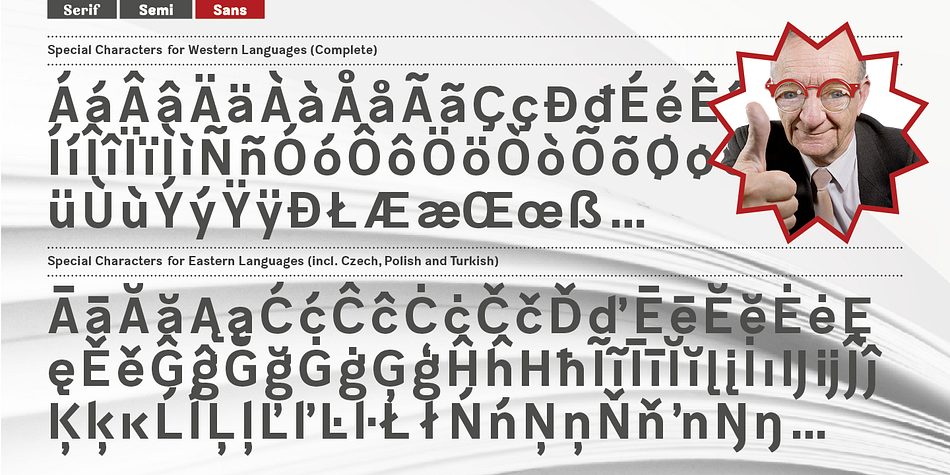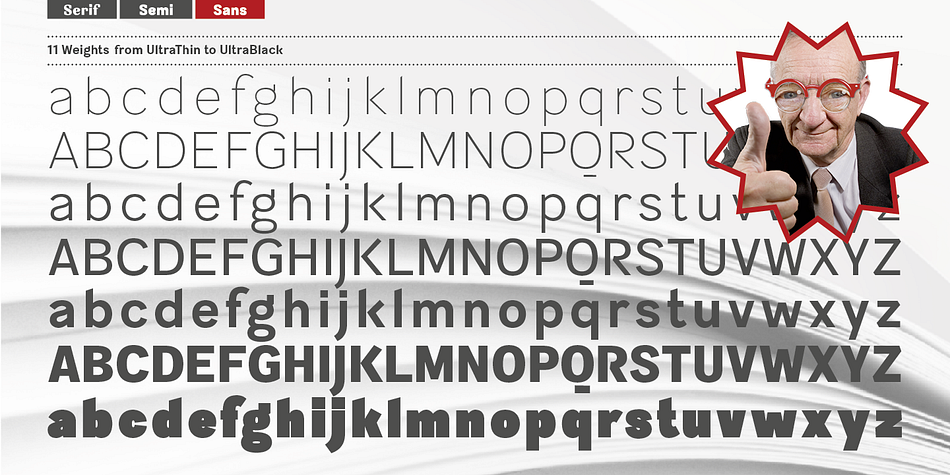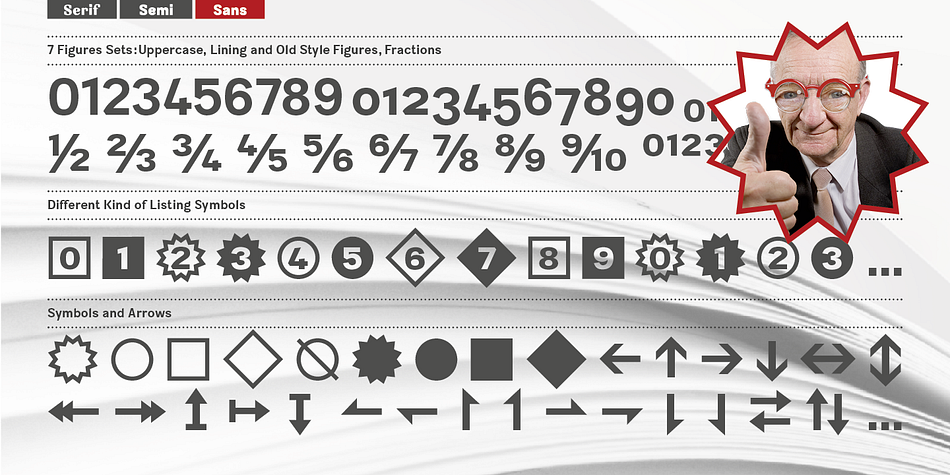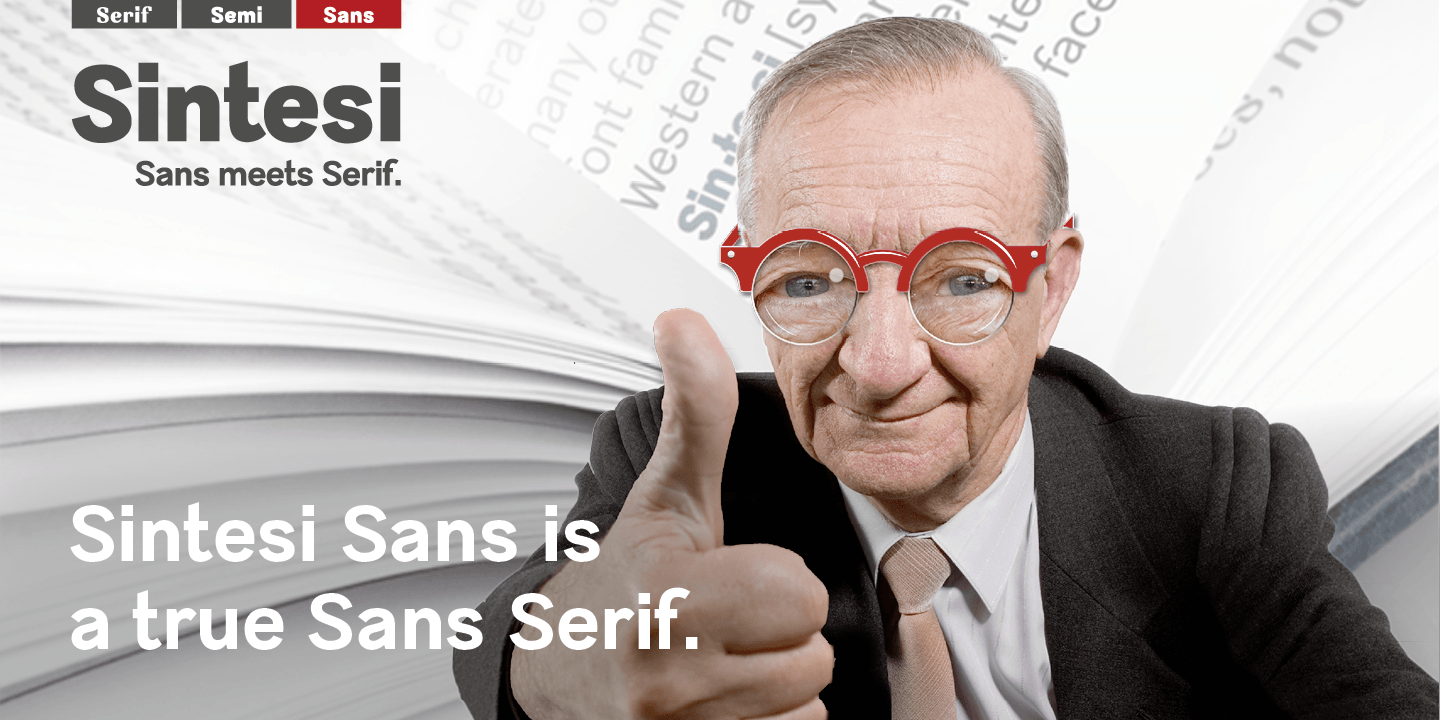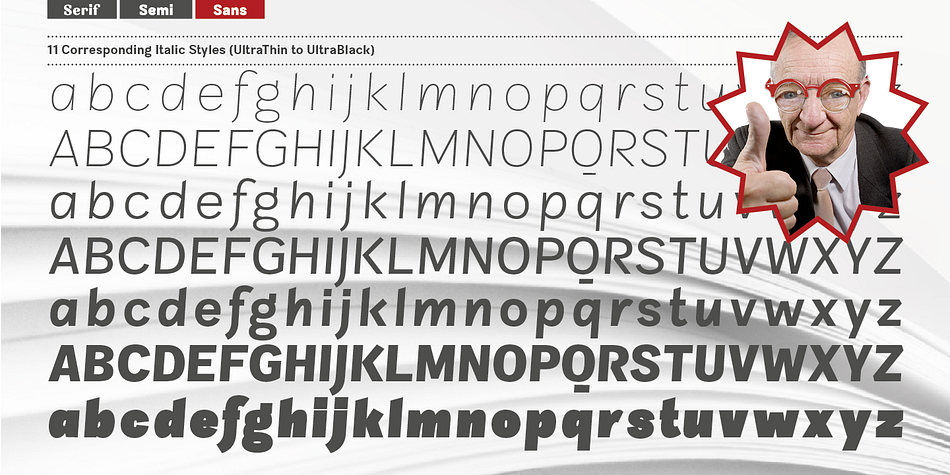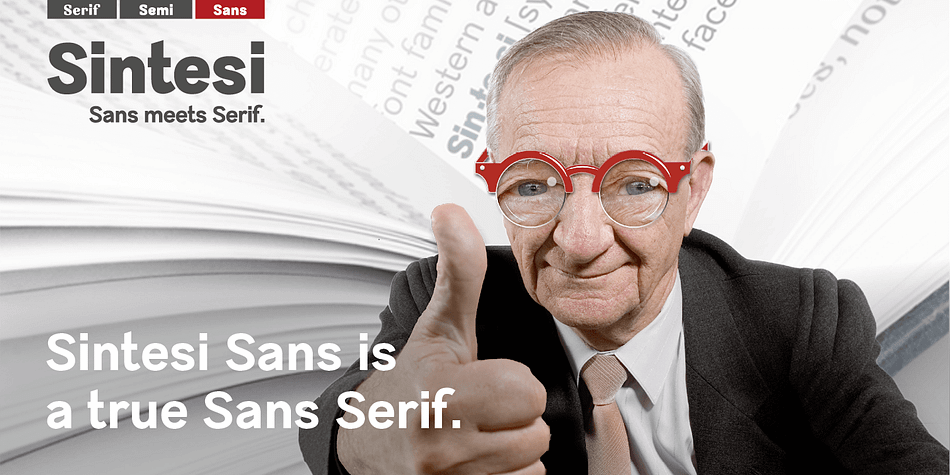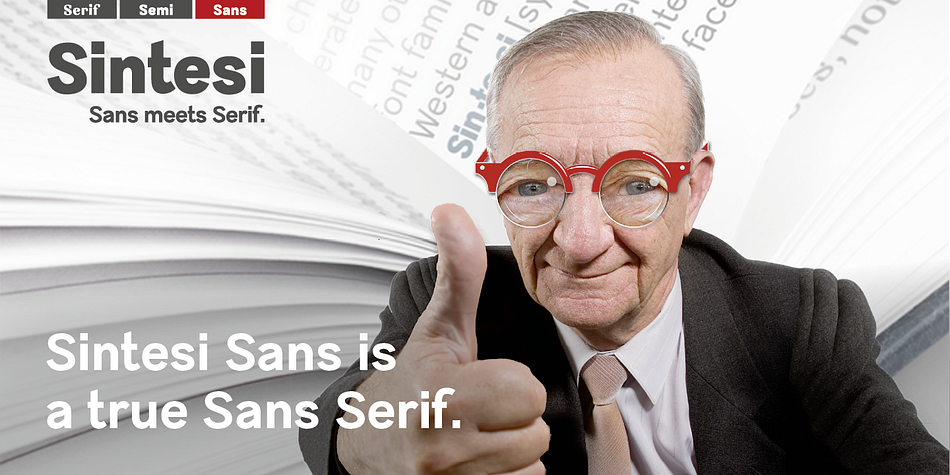
Sintesi Sans is a sans serif font family. This typeface has twenty-two styles and was published by FSdesign.
Sans meets serif.
Are you looking for a robust, contemporary but nonetheless an elegant font? Sintesi Sans might be exactly what you are looking for.
Sintesi Sans builds together with Sintesi (SemiSerif) and Sintesi SemiSans an extended family. However each of the three member of the Sintesi-family accomplish the «synthesis» between Sans and Serif on its own way.
Sintesi Sans scores because of its readability, robustness and contemporary style. It is a true Sans Serif and therefore really flexible, universally applicable especially as a body text font and in a broad number of other applications. Worth mentioning is the particularly slim «Extrathin» style, which elegance is not to be outbalanced. Thanks to the good readability and the wide set of styles and glyphs, Sintesi Sans suits to a wide spectrum of applications.